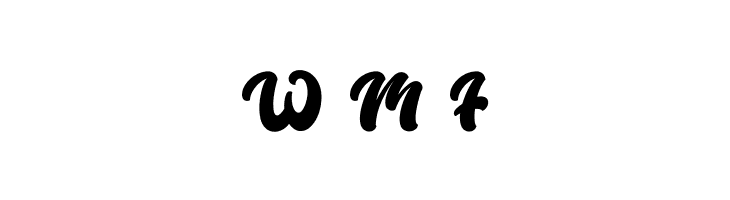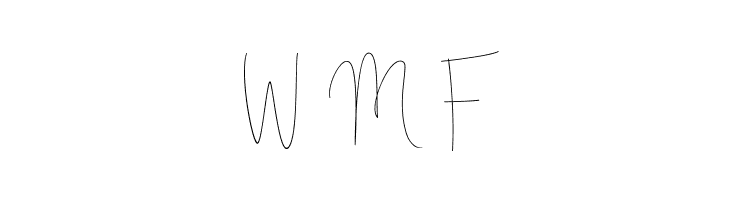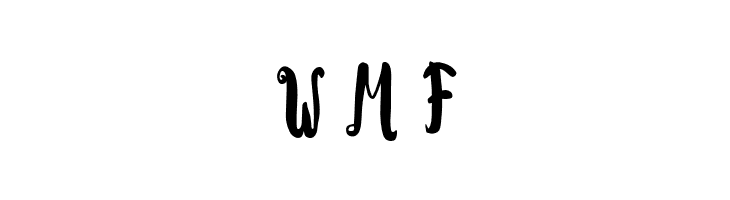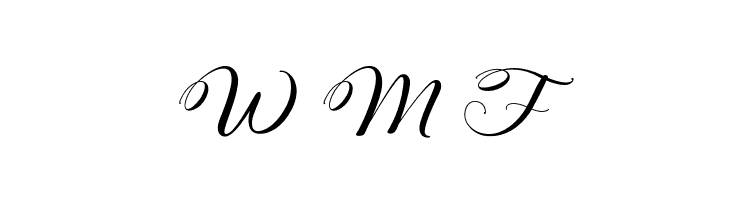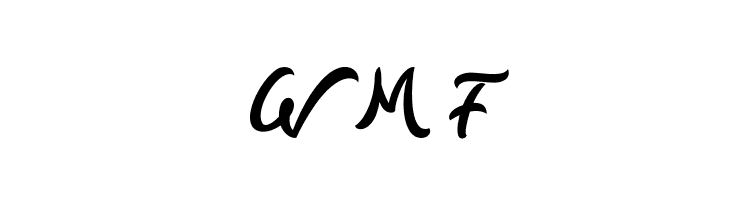
A bold, expressive script font with flowing, dynamic strokes.
A whimsical, flowing handwritten font with elegant, thin strokes.
A playful, handwritten font with elongated, whimsical strokes.
A lively, expressive script font with a handwritten feel and fluid connections.
A playful, cursive font with a hand-drawn, whimsical style.
A lively and elegant script font with fluid, dynamic letterforms.
A whimsical, decorative font with curly serifs and a playful, hand-drawn style.
An elegant script font with intricate flourishes and graceful curves.
A bold, flowing script font with elegant, cursive letterforms.
A bold, elegant script font with flowing curves and decorative flair.